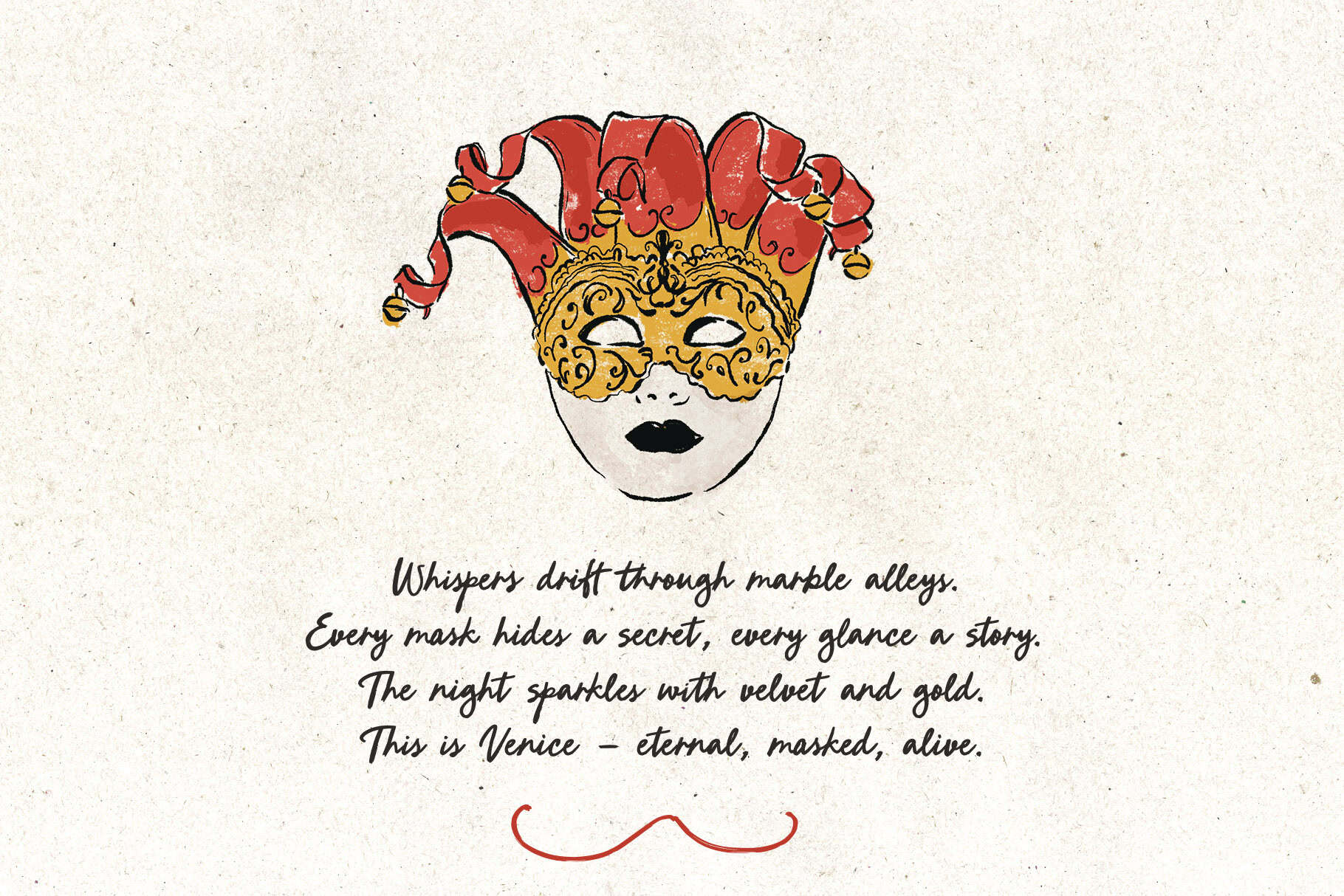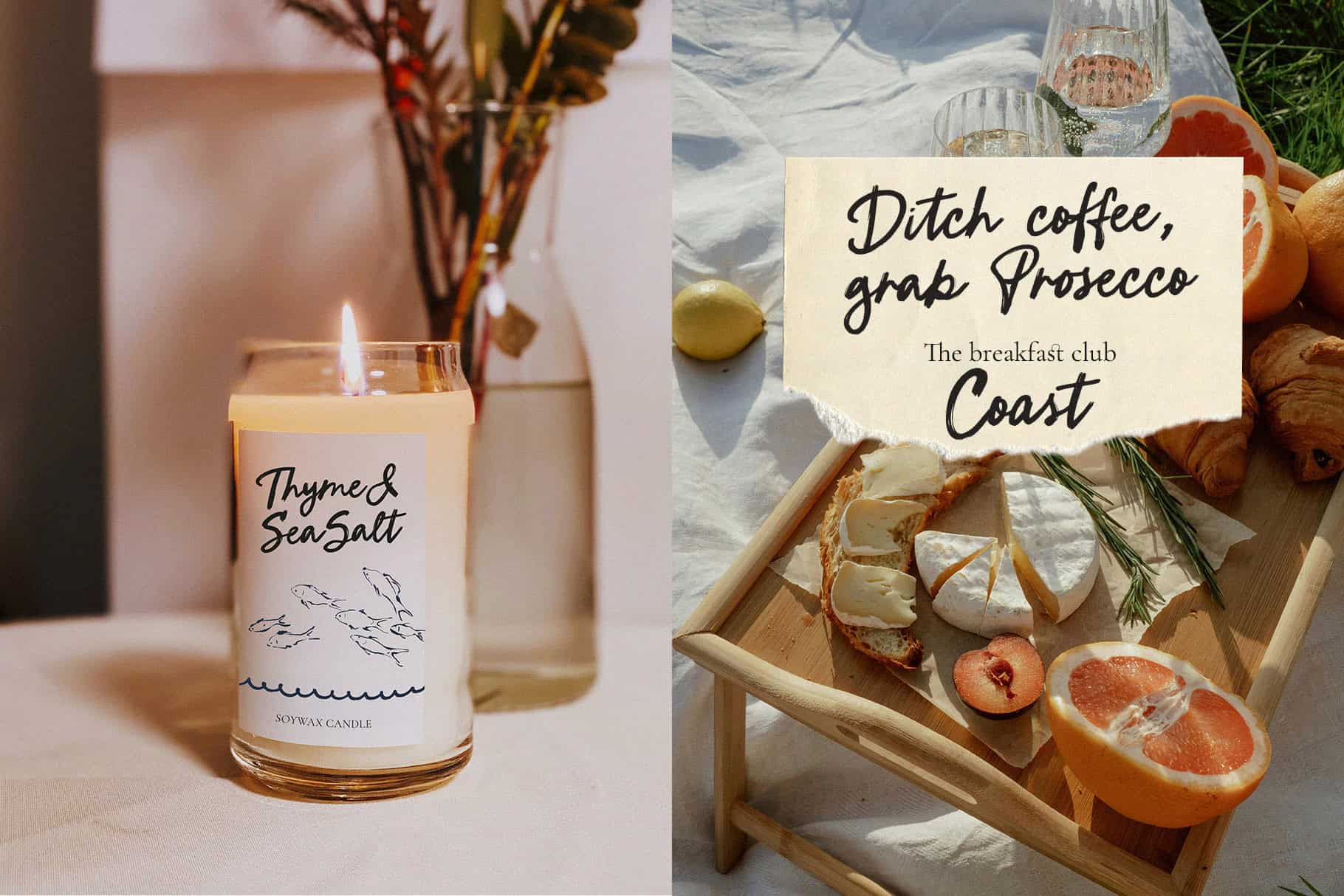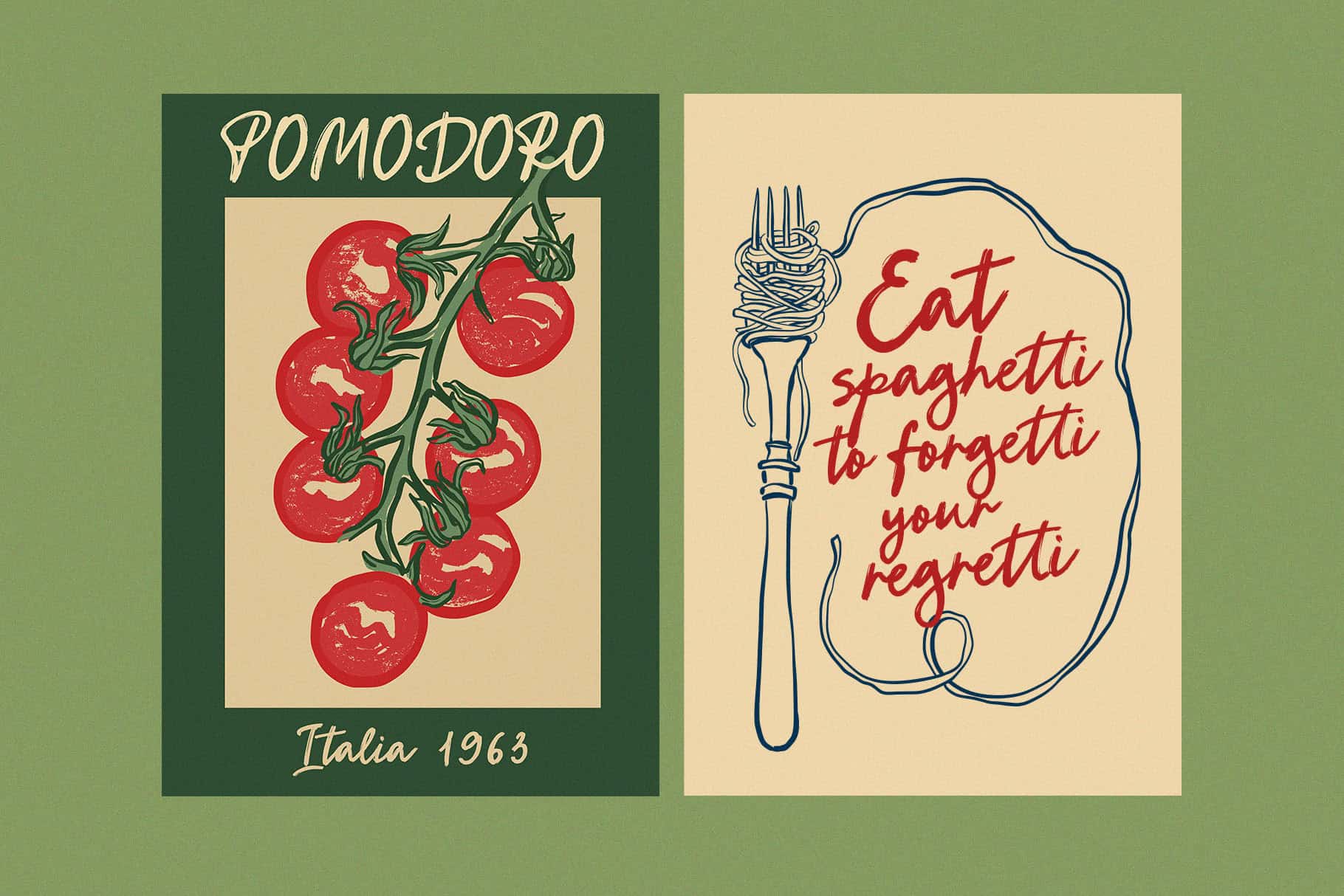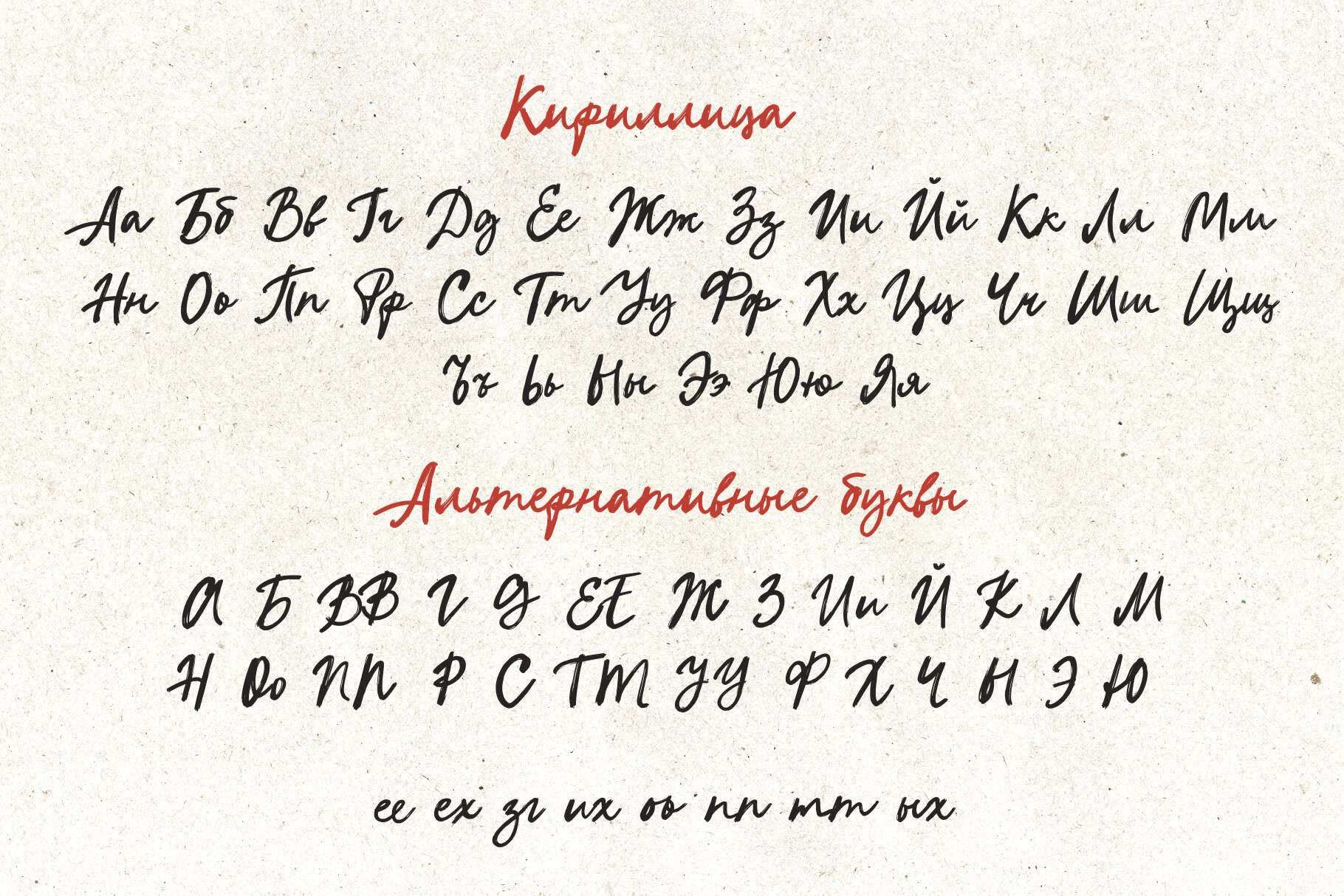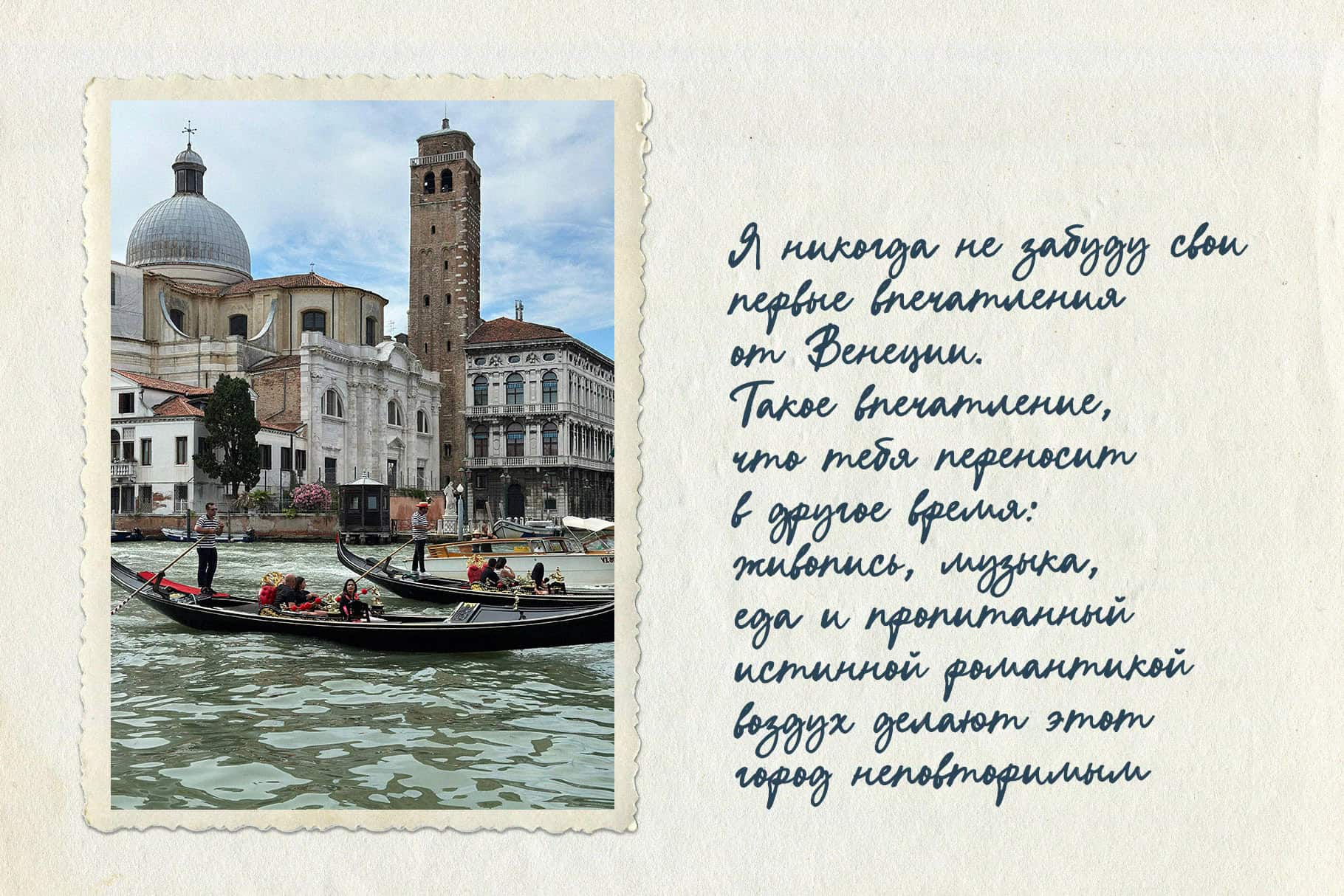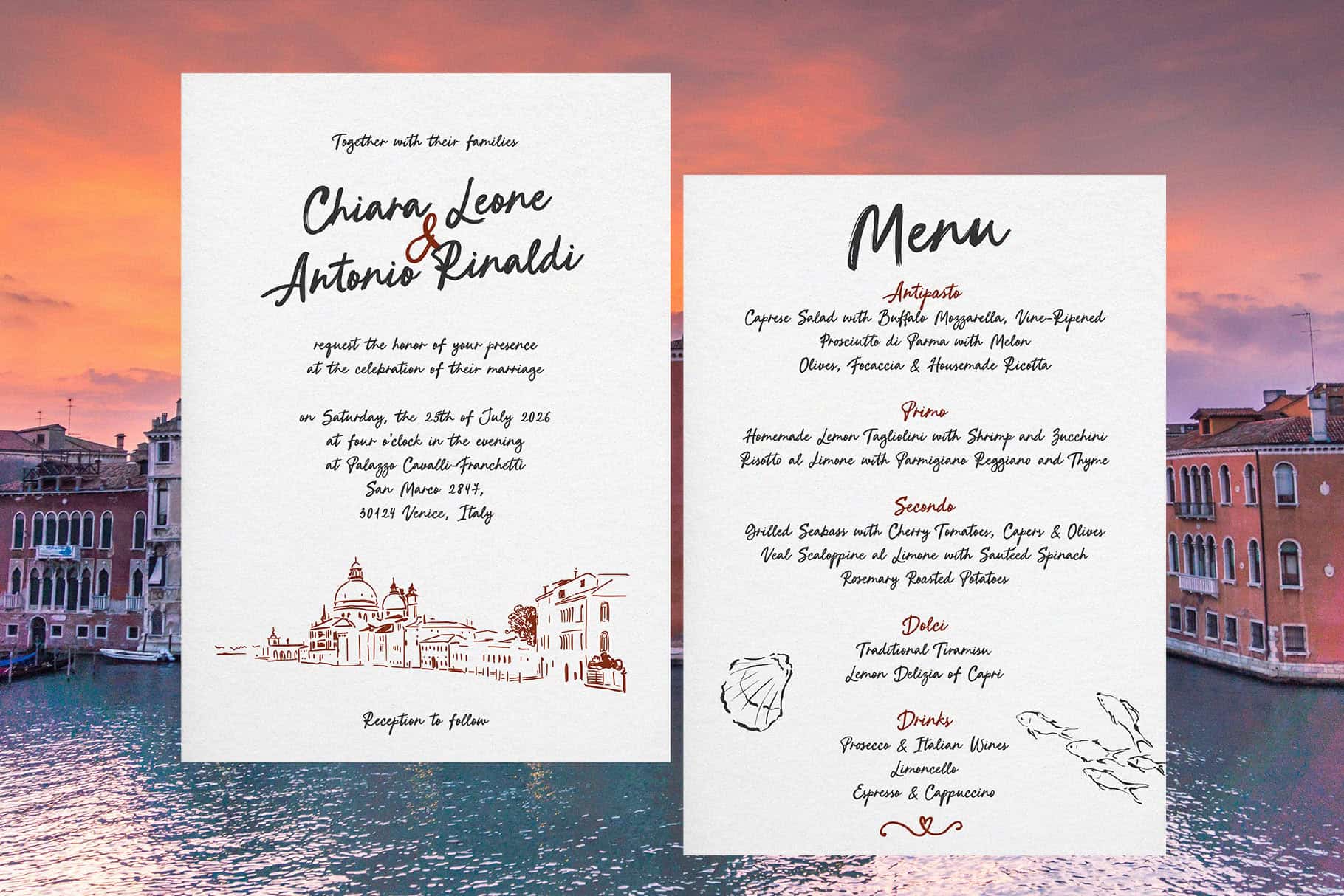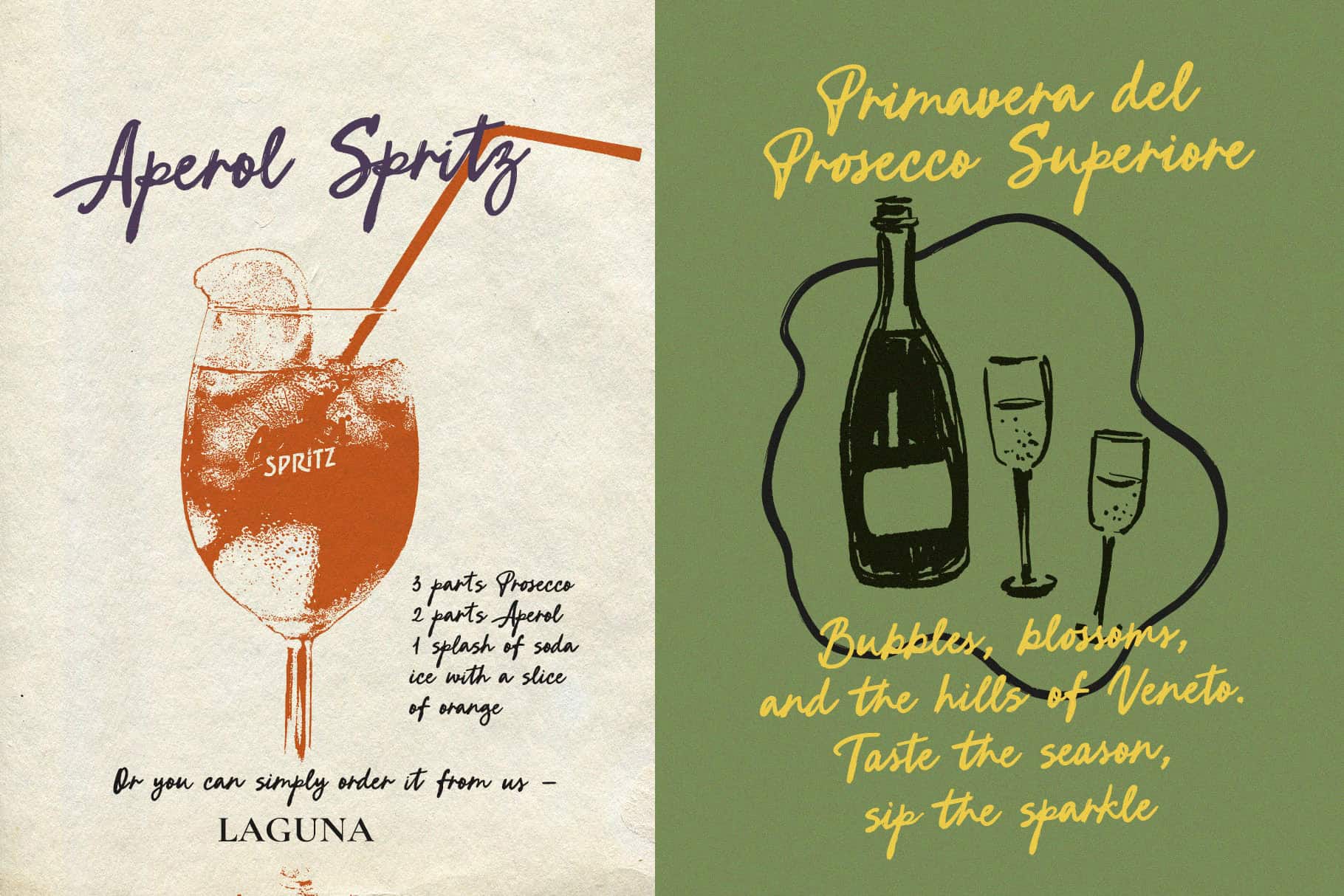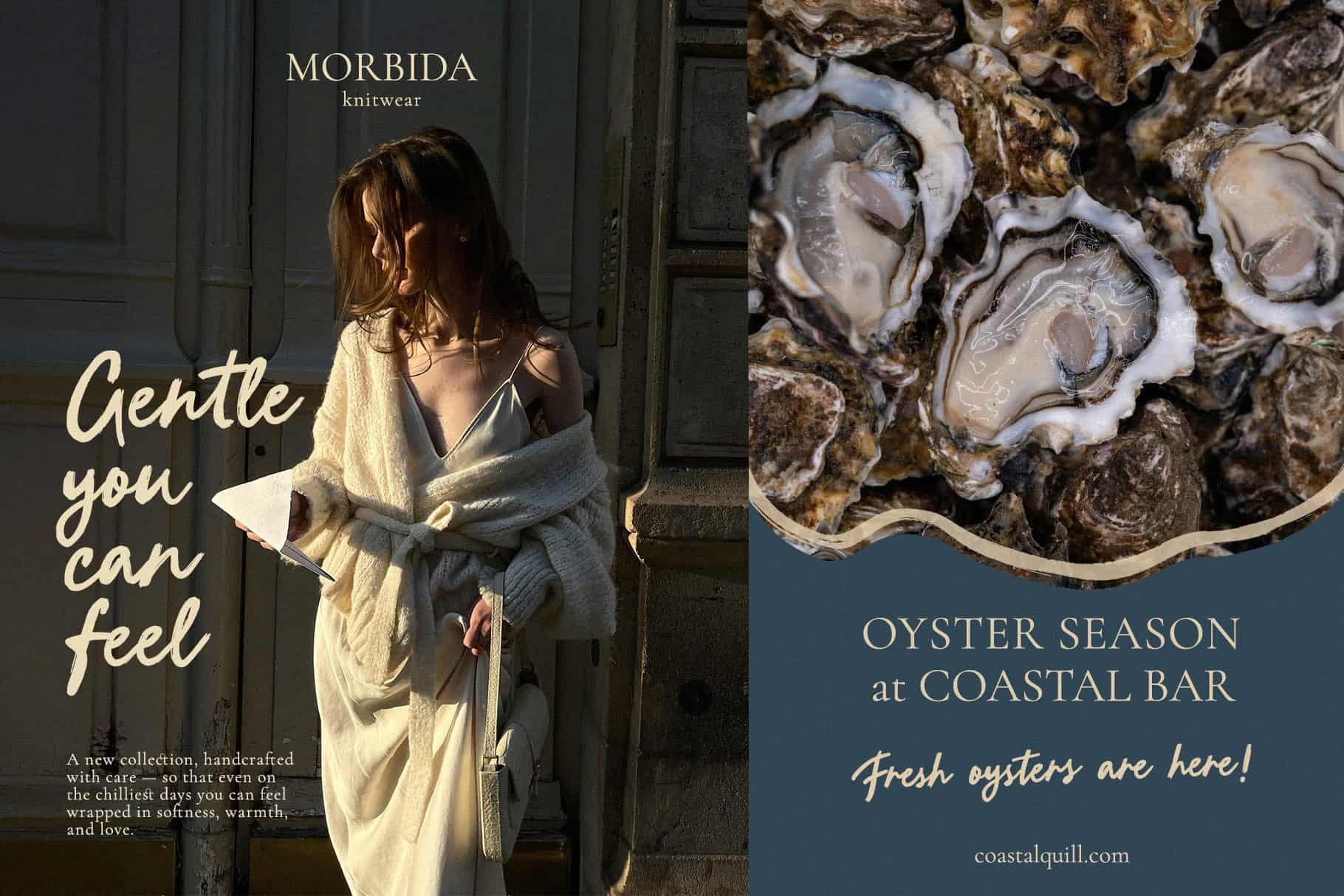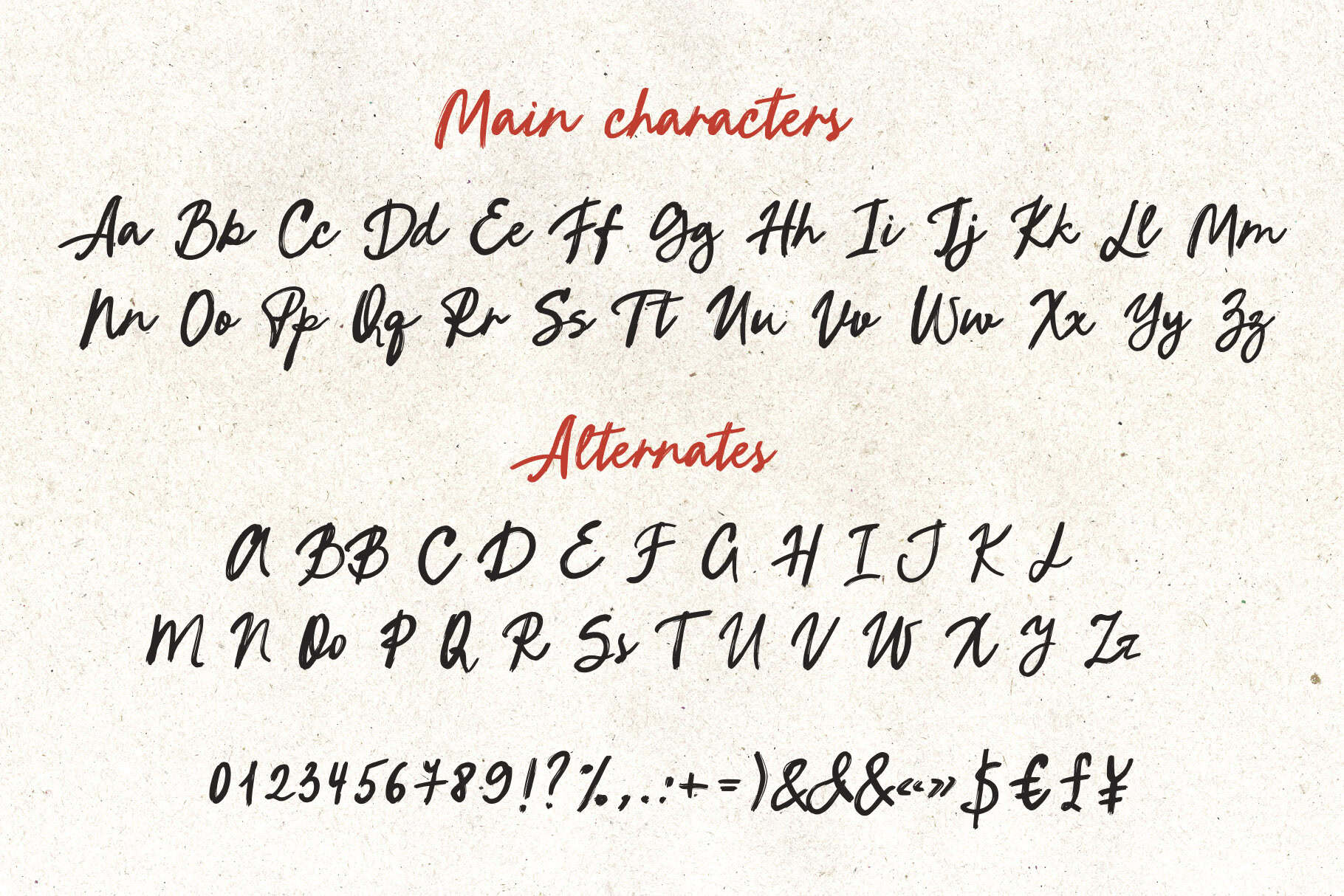
Breakfast in Venice handwritten script font bold Calligraphy brush typeface
Breakfast in Venice is a bold handwritten script font with authentic brush texture and  multilingual support. Designed by hand and digitized with care, this modern calligraphy font brings energy, warmth, and elegance to any project.
With its organic strokes, textured look, and plenty of stylistic alternates and ligatures, Breakfast in Venice feels natural, playful, and stylishly imperfect — just like true handwriting. Perfect for creating expressive logos, branding, websites, posters and prints, invitations, wedding stationery, greeting cards, social media posts & graphics, and packaging designs.
Whether you need a modern brush font for a bold headline, a script font with retro charm for stylish prints, or a cozy handwritten typeface for seasonal designs, Breakfast in Venice adds personality and sophistication.
Breakfast in Venice has extensive language support, it includes English, French, German, Italian, Spanish, Portuguese, Danish, Norwegian, Swedish, Finnish, Estonian, Romansh, Turkish, Polish, Cyrillic.
Bring your words to life with a script that’s textured, trendy, and timeless.